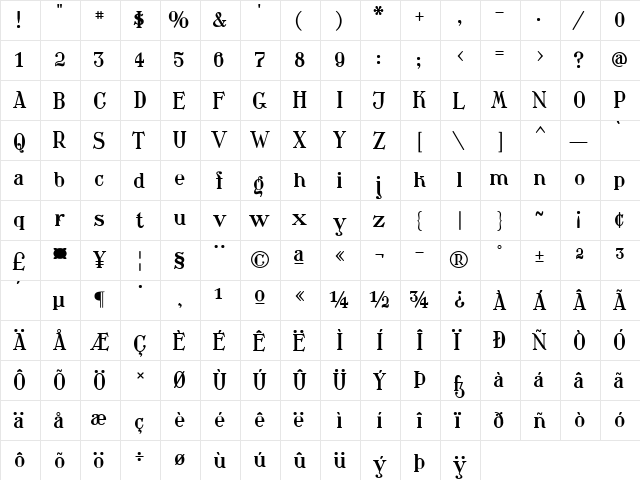
Waschkueche Regular
| Designer | Peter Wiegel |
Design Context for Waschkueche Typeface
Waschkueche takes a measured approach to typography — its balanced proportions and neutral character make it a reliable workhorse for both digital and print work.